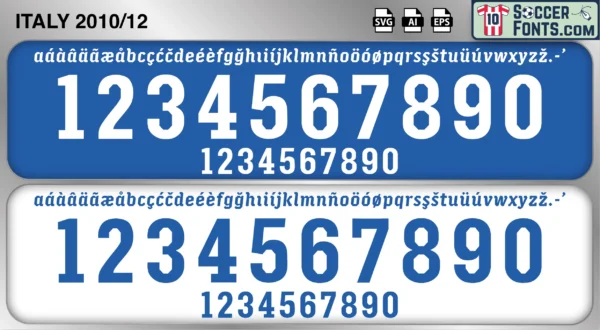
Italy 2010-12 Font
The Italy 2010-12 font is an editable soccer jersey lettering design in vector format inspired by the Italy kit style used during the 2010-12 football seasons. This football font artwork is prepared for football shirt recreations, custom jersey projects, football kit mockups and sports graphic design workflows.
The 2010-12 period marked a transitional era for the Italian national team following the conclusion of the generation that had won the 2006 FIFA World Cup. After a disappointing World Cup campaign in South Africa, Italy began rebuilding around a new group of players while maintaining experienced leaders within the squad. Footballers such as Gianluigi Buffon, Andrea Pirlo, Giorgio Chiellini, Daniele De Rossi, Claudio Marchisio and Antonio Cassano became central figures as Italy prepared for UEFA EURO 2012. The national team gradually developed a more dynamic identity while preserving the tactical intelligence traditionally associated with Italian football.
The Italy 2010-12 font became associated with one of the most impressive tournament runs in modern Italian football. Italy shirts from this era remain highly recognizable because of their connection with UEFA EURO 2012, where the national team exceeded expectations and reached the final after memorable performances against some of Europe’s strongest opponents. The Italy 2010-12 font reflects a period of renewal, resilience and football tradition, capturing the emergence of a generation that restored belief and competitiveness to the Italian national team.